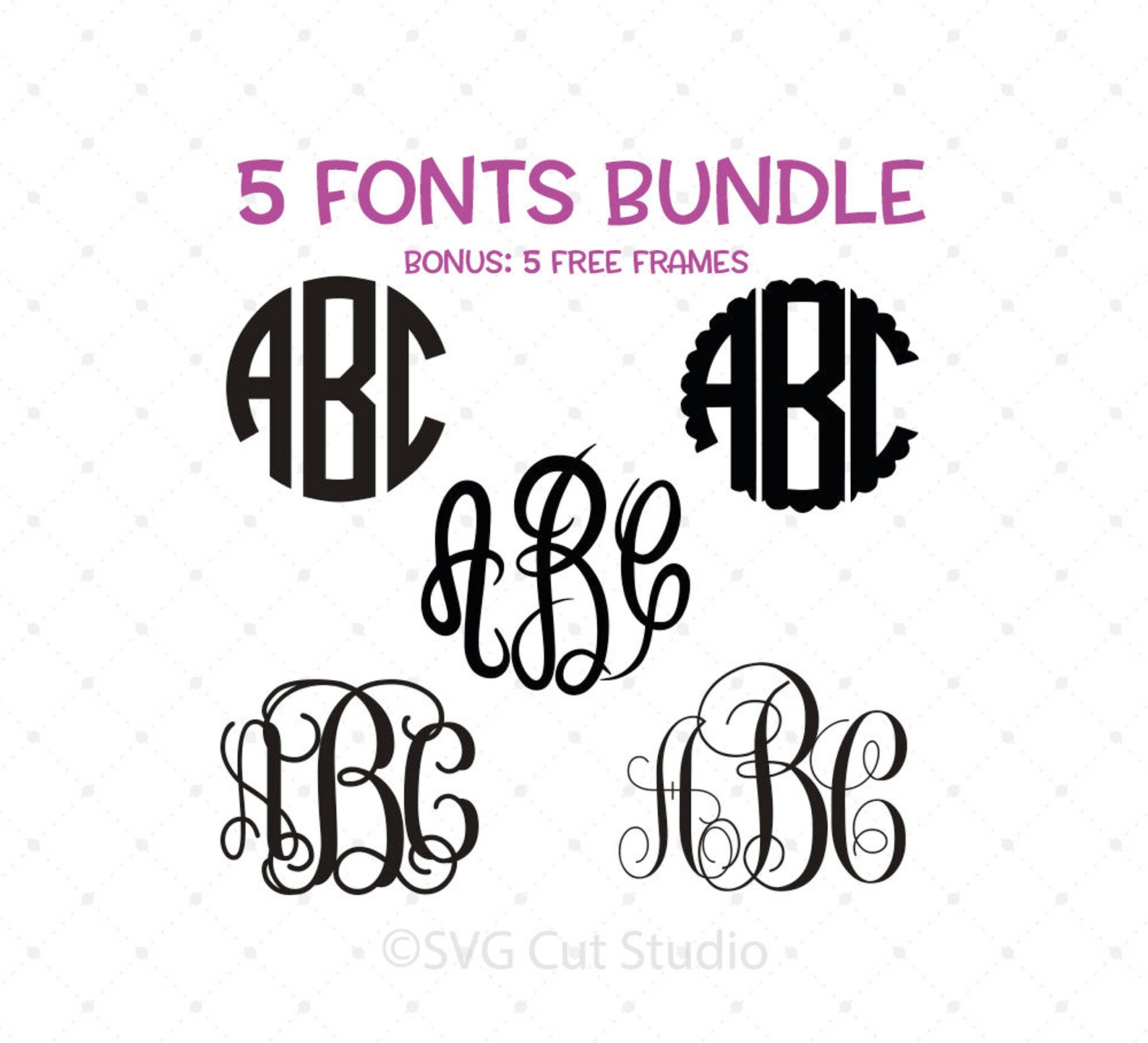
Free and Premium Quality Fonts - Best Premium FontsHome fonts elegant scroll sketch monogram the light and airy sketch fill pattern allows for a quick stitch out. Art dst exp hus jef pec pes shv vip vp3 sew xxx bx. Elegant scroll two color embroidery font included sizes.
elegant scroll monogram font free
Elegant scroll monogram font free. Check out this adorable elegant scroll monogram svg dxf font cut file. If you love monograms you will love my collection of 30 of the best free monogram fontsso many to choose from single letter with design monograms interlocking monograms block monograms circle monograms and more. Monograms can be made on a cricut or other similar machine and then placed onto whatever needs personalizing. The space between each line of stitching varies such that it is more dense at the bottom than the top of each letter to create the shading effect.
You can create diy project with our beautiful free svg monogram including svg dxf eps and png files. Our exclusive elegant scroll script font was made to match our elegant scroll monogram sold separately. We have the best fancy blocky and decorative fonts for your own monograms for free. We have 252 free elegant script fonts to offer for direct downloading 1001 fonts is your favorite site for free fonts since 2001.
Use these for your silhouette cricut machine and more. A monogram is a symbol of a persons initials created using a decorative uppercase font often in a circle format.